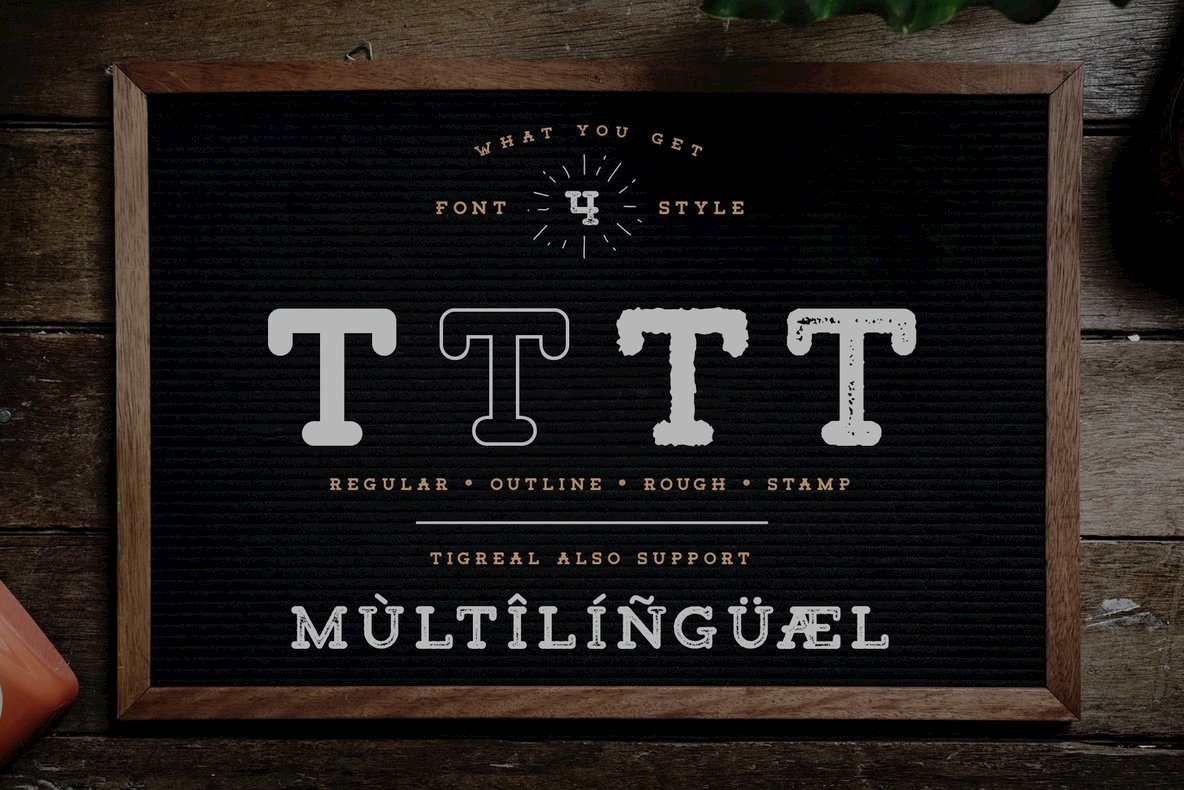
Tigreal Font
The Tigreal Font Family by Craft Supply Co. is a comprehensive typographic toolkit for designers, featuring four distinct styles and supplementary illustrations. Perfect for a range of design projects, from print materials to brand identity creation, Tigreal invites creativity and innovation. Whether crafting greeting cards, packaging, or retro-inspired designs, this font family offers a solution that infuses any project with a stylish, trendy aesthetic. With Tigreal, there's no need for specialized software, making it accessible for designers at any skill level. Explore the full potential of your projects with the Tigreal Font Family and enjoy a seamless creative experience.Tigreal Font Family: Versatility in Four Styles